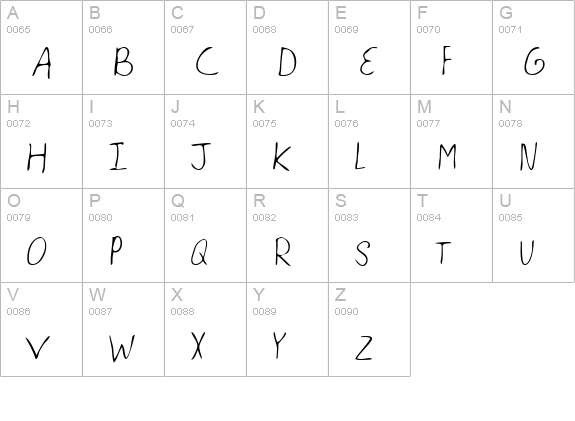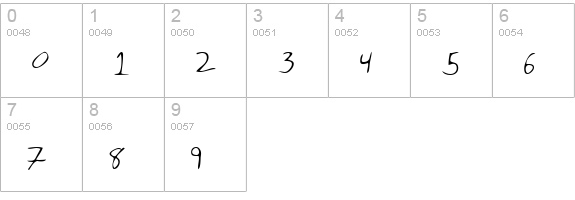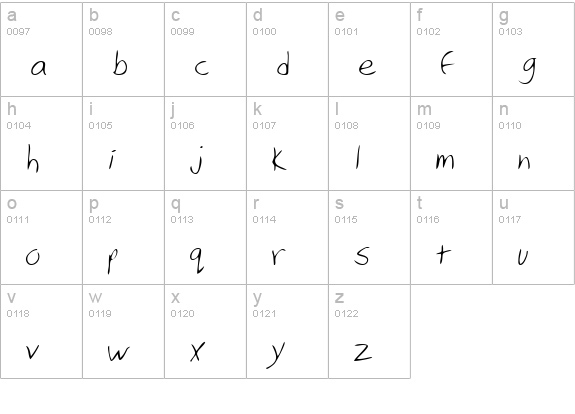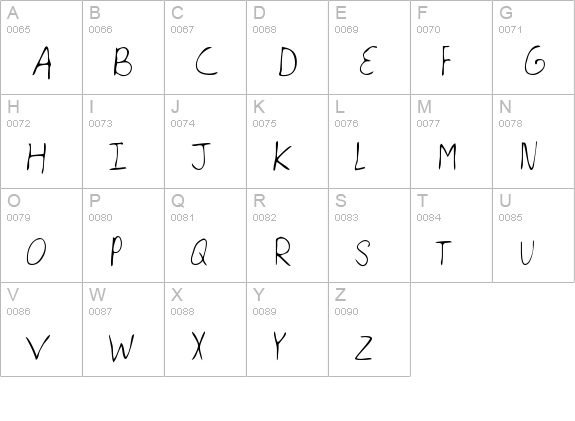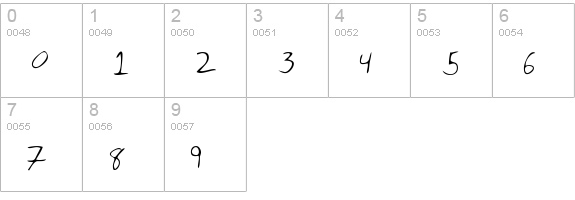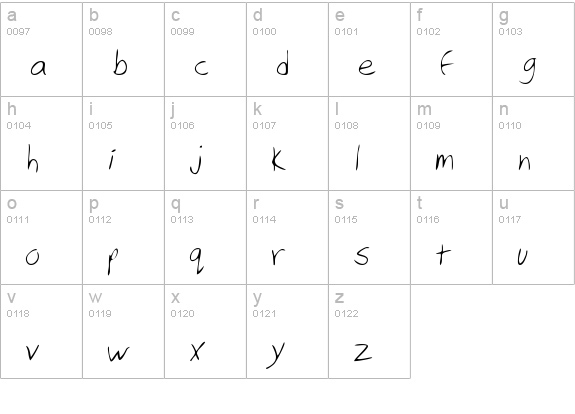
HarmonsHand Regular Font Details
HarmonsHand Regular is the standard, neutral variant in the HarmonsHand typeface family \xE2\x80\x94 well suited to general body text, paragraphs, and standard typographic work.
HarmonsHand Regular is a captivating and versatile font that effortlessly combines modern elegance with a touch of handwritten charm. Its fluid strokes and balanced proportions make it an ideal choice for a wide range of creative projects, from branding and packaging to invitations and social media graphics. This font boasts a unique character that is both contemporary and timeless, making it perfect for adding a personal touch to any design. Its gentle curves and soft edges create a sense of warmth and approachability, while its clean lines ensure legibility and clarity. HarmonsHand Regular is available in a variety of weights and styles, allowing you to experiment and find the perfect fit for your project. Whether you're looking for a bold and impactful headline or a delicate and graceful script, this font has you covered. And the best part? HarmonsHand Regular is completely free to download at FontsMarket.com! Experience the versatility and beauty of this font without breaking the bank. It's the perfect opportunity to enhance your creative endeavors without compromising on quality. So why wait? Discover the endless possibilities that HarmonsHand Regular has to offer. Download it today from FontsMarket.com and unleash your creativity with this freely available font.